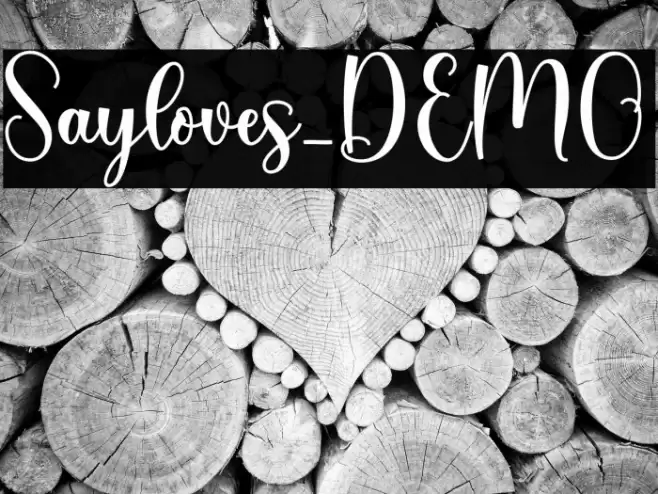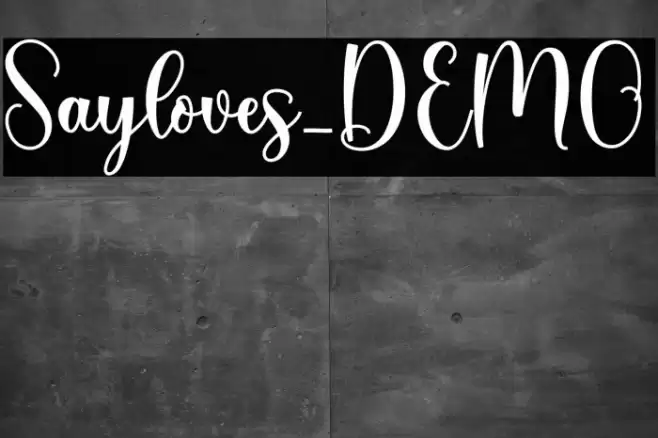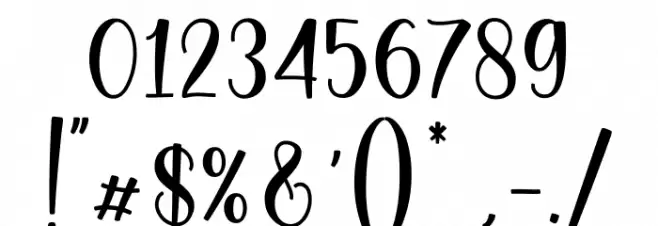
Sayloves_DEMO Font
Sayloves_DEMO Description
This font features a playful and whimsical script style, characterized by its flowing, cursive letters with a hand-drawn appearance. The uppercase letters are tall and elegant, with a slight slant that adds to their dynamic feel. The lowercase letters are rounded and feature charming flourishes, such as loops and swirls, which give the font a lively and friendly personality. The numbers are consistent with the overall style, maintaining the same playful curves and strokes. Special characters are designed with the same attention to detail, ensuring a cohesive look across all glyphs. The font's unique style makes it suitable for creative and informal projects.
A playful, whimsical script font with flowing, cursive letters and charming flourishes from Regular fonts.
- Proposed Projects: Ideal for greeting cards, invitations, branding, and creative projects that require a personal touch.
- Use Case: Logos, Invitations, Greeting Cards